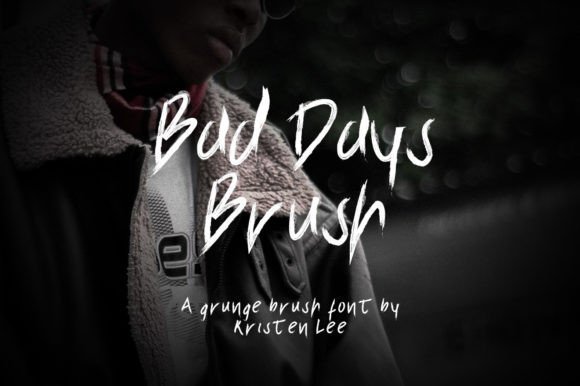
Enter the Bad Days Brush Font, a textured, gritty, fun font that’s perfect for capturing the essence of those unrefined moments. With its hand-drawn feel and dry brush aesthetic, this font is ideal for invitations, thumbnails, and social media posts that need a touch of personality.
For designers, the Bad Days Brush Font is a valuable asset – a tool that can help them tap into their creativity and produce unique, eye-catching designs that stand out from the crowd.
Bad Days Brush Font Key Features
- Unique Characteristics: The Bad Days Brush Font features a distressed, hand-drawn aesthetic, with subtle texture and imperfections that give it a unique, organic feel.
- Legibility: Despite its distressed appearance, the font is highly legible, making it suitable for use in body text, headlines, and other design applications where readability is crucial.
Bad Days Brush Font Review
Overall, I think the Bad Days Brush Font is a great addition to any designer’s toolkit. It has a certain charm and character that can add a unique touch to your designs.
- ✨ Unique brush strokes and texture that can add a personal touch to your designs
- ✨ Highly customizable, allowing you to fine-tune the look and feel to suit your needs
- ⚠️ The font may not be suitable for use in small text sizes, as the brush strokes can become difficult to read
Overall, I think the Bad Days Brush Font is a great choice for designers who want to add a unique touch to their work. While it may have some limitations, the benefits far outweigh the drawbacks. With some careful planning and design, I think this font has the potential to be a real game-changer.
For a more authentic look, pair the Bad Days Brush Font with distressed textures and colors.
Use the font to add a touch of personality to your designs.
The Bad Days Brush Font is ideal for:
Designing social media posts and advertisements with a vintage or distressed look.
Creating invitations and party decorations with a playful, handwritten feel.
Adding a personal touch to presentations and reports with a unique font style.
What is the recommended font size for using the Bad Days Brush Font?
The Bad Days Brush Font is designed to be used at a medium to large font size, typically between 12pt and 48pt. Using the font at smaller sizes may result in a loss of detail and legibility. For optimal results, use the font at a size that is clear and easy to read, while still maintaining the unique character of the brush font style.